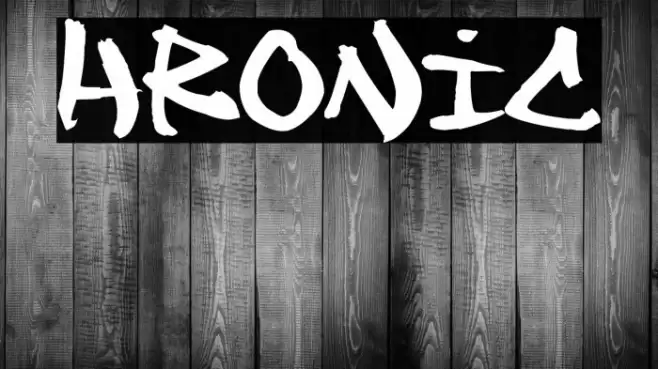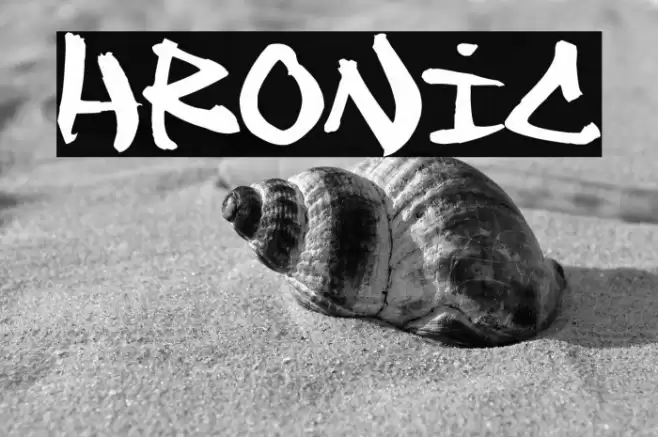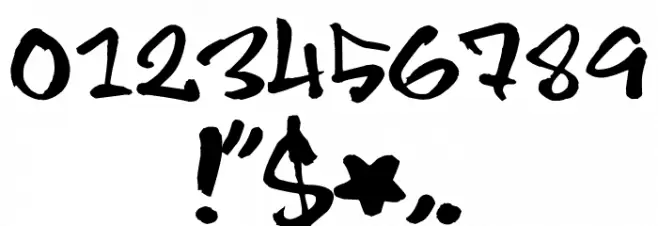
Chronic Font
Chronic Description
This font features a bold, expressive style with a hand-drawn appearance. The letters are characterized by thick, uneven strokes that give it a dynamic and energetic feel. The uppercase letters are particularly striking, with exaggerated curves and angles that create a sense of movement. The numbers and special characters maintain this boldness, ensuring consistency across all glyphs. This font is perfect for projects that require a strong visual impact, such as posters, headlines, and branding materials. Its unique style makes it stand out, capturing attention with its artistic flair.
A bold, hand-drawn font with expressive, dynamic strokes from Regular fonts.
- Font: Chronic
- Proposed Projects: Ideal for posters, headlines, branding, and any project needing a strong visual impact.